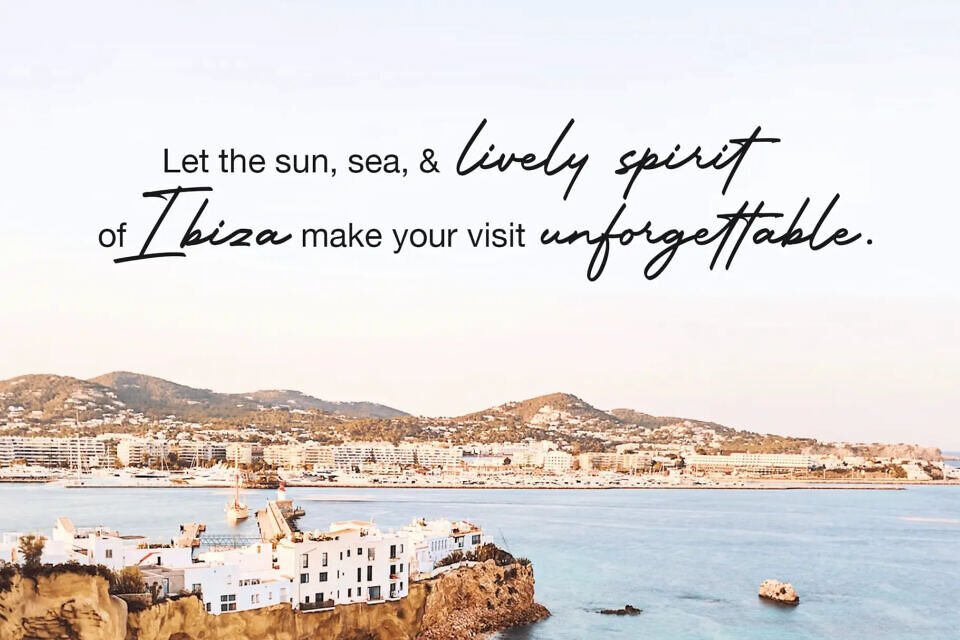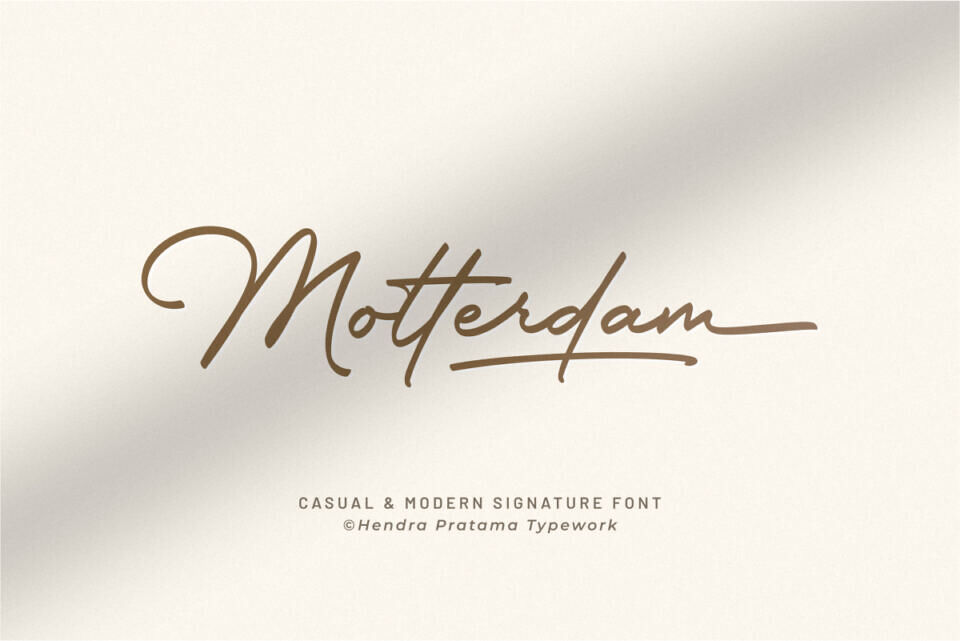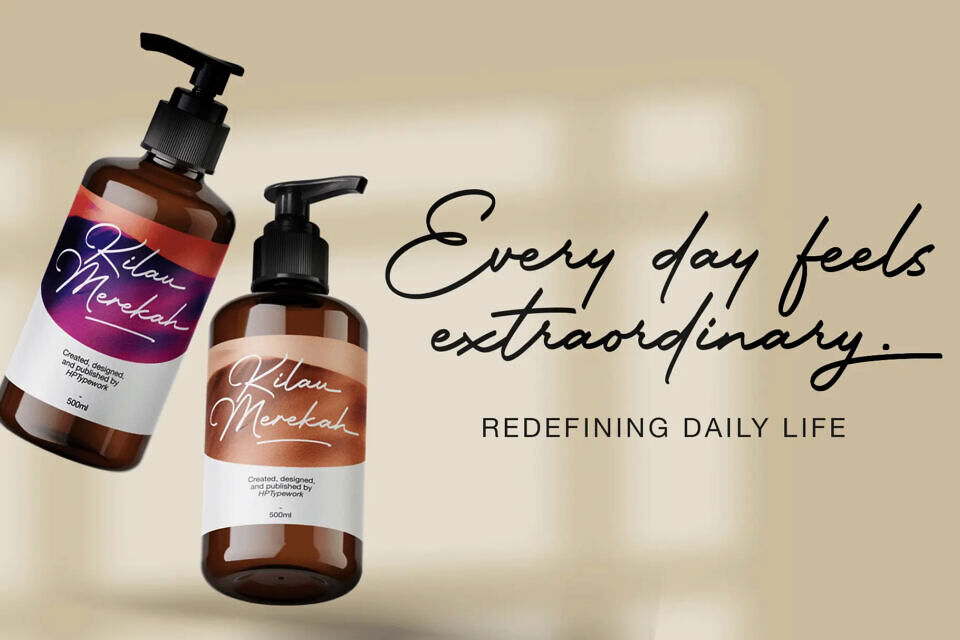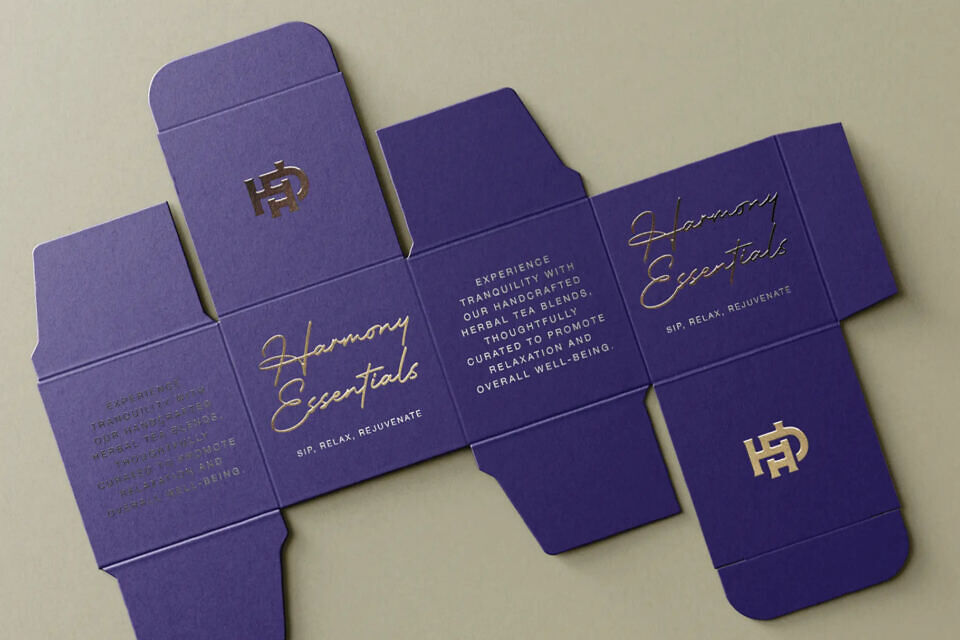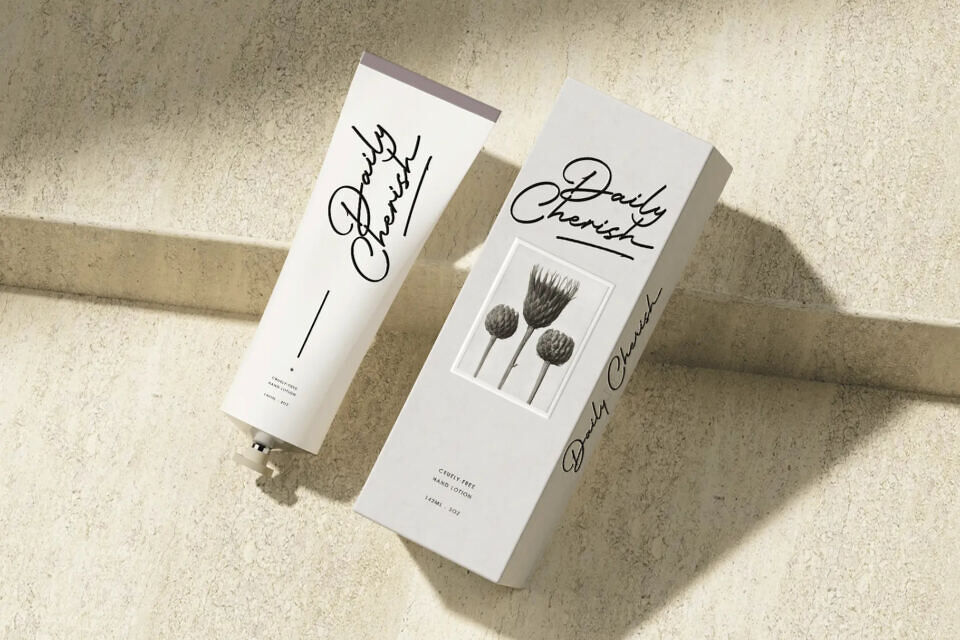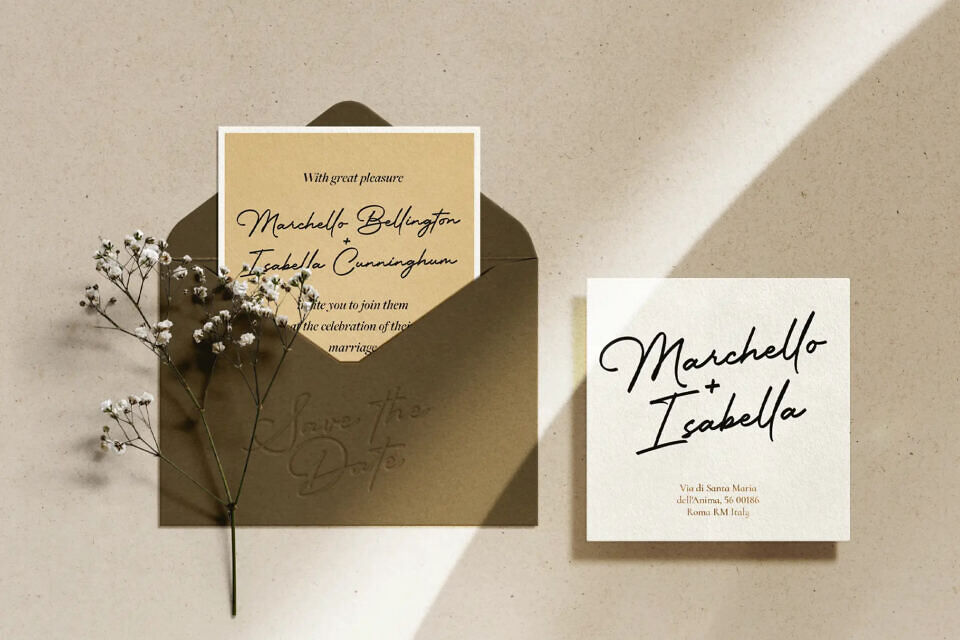
Motterdam Font
Motterdam is a signature-style calligraphy font by Hendra Pratama, featuring breezy, effortless strokes with an inky texture and organic grain. It balances handwritten elegance with exceptional clarity, utilizing light pressure and quick lifts for a natural, human-like rhythm.
Ideal for boutique logos, wedding stationery, and high-end branding, it provides a confident, lived-in aesthetic. Its graceful letterforms pair seamlessly with clean sans-serifs, making it perfect for product packaging, social media, and professional watermarks.